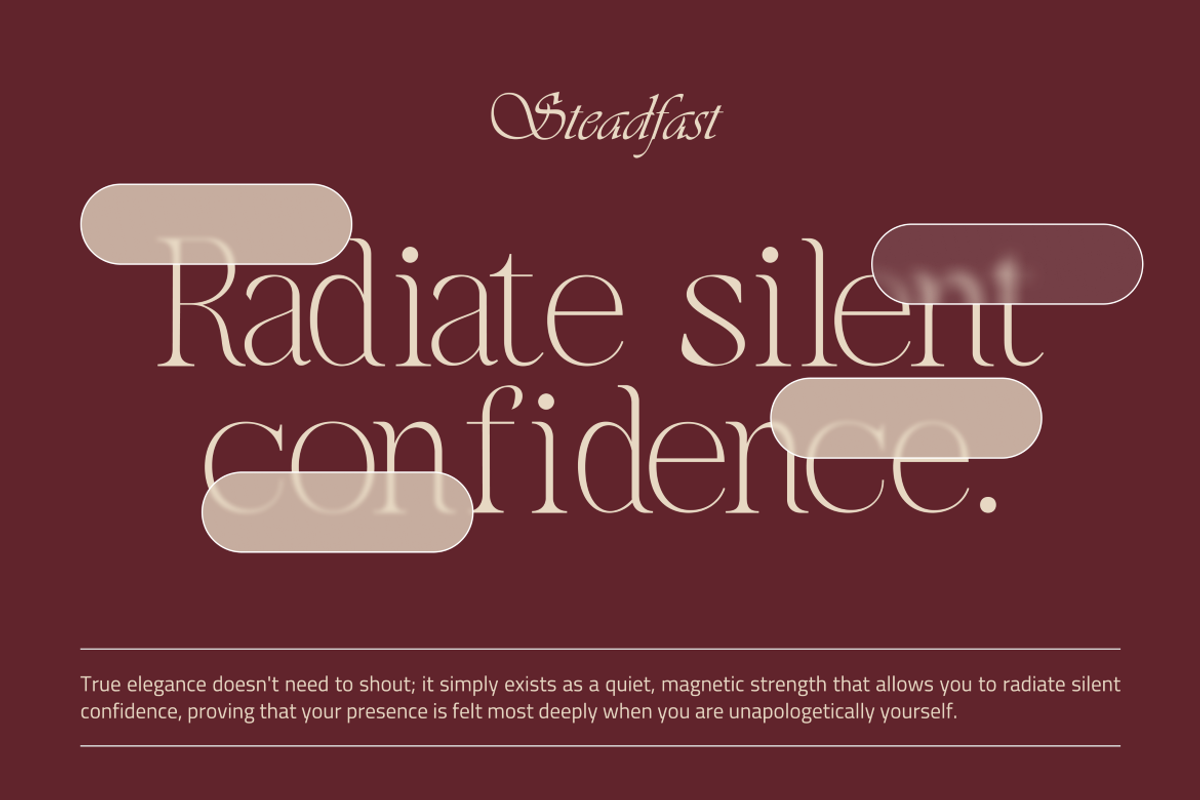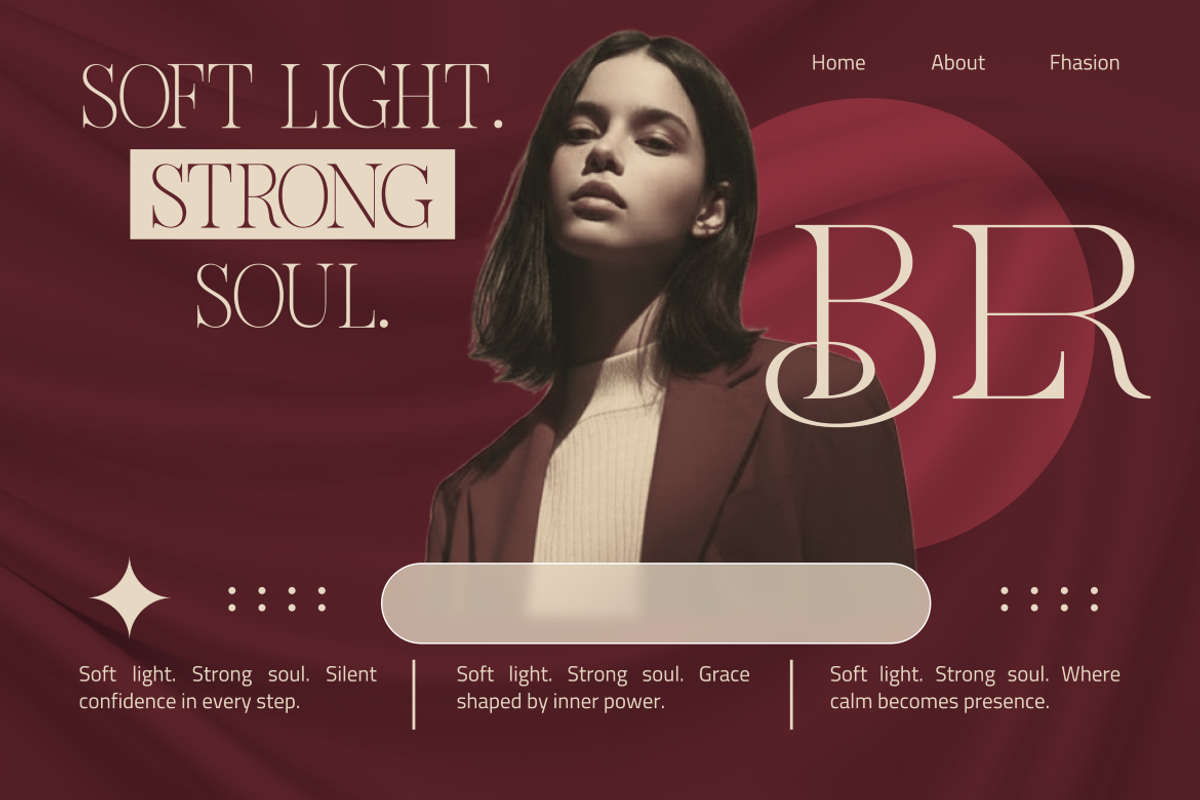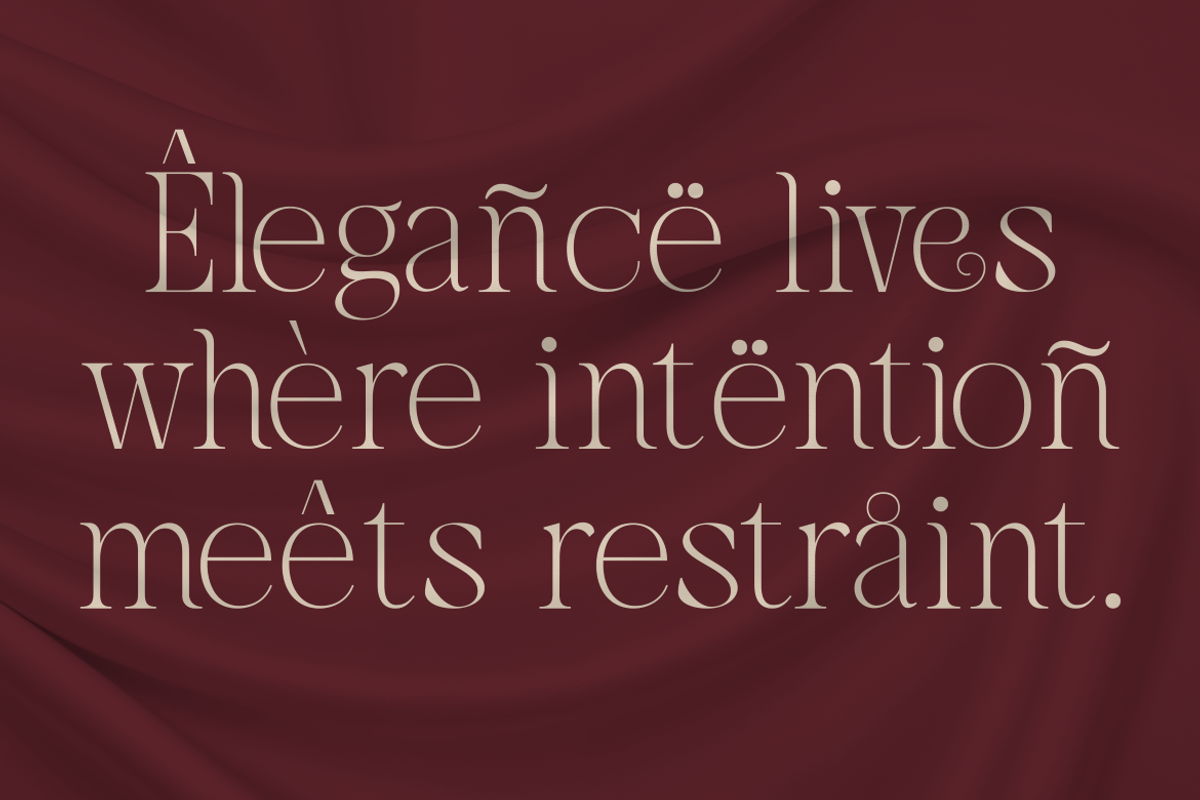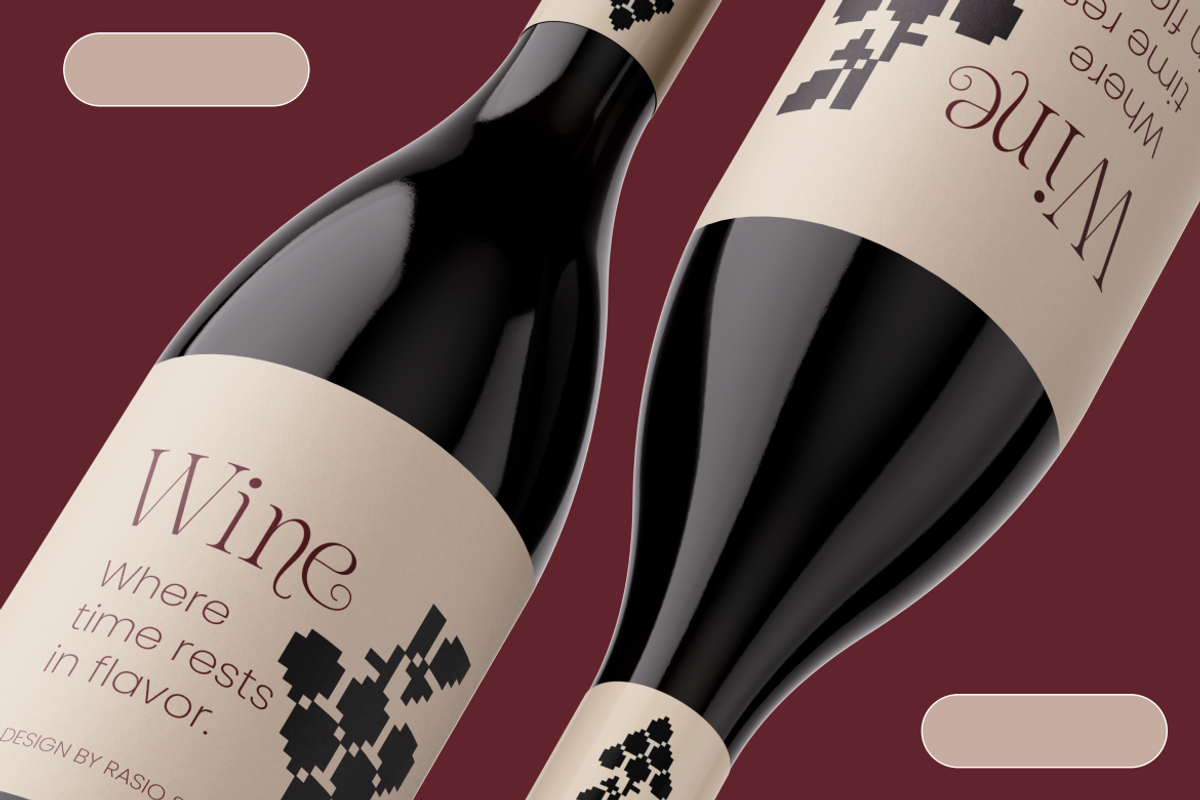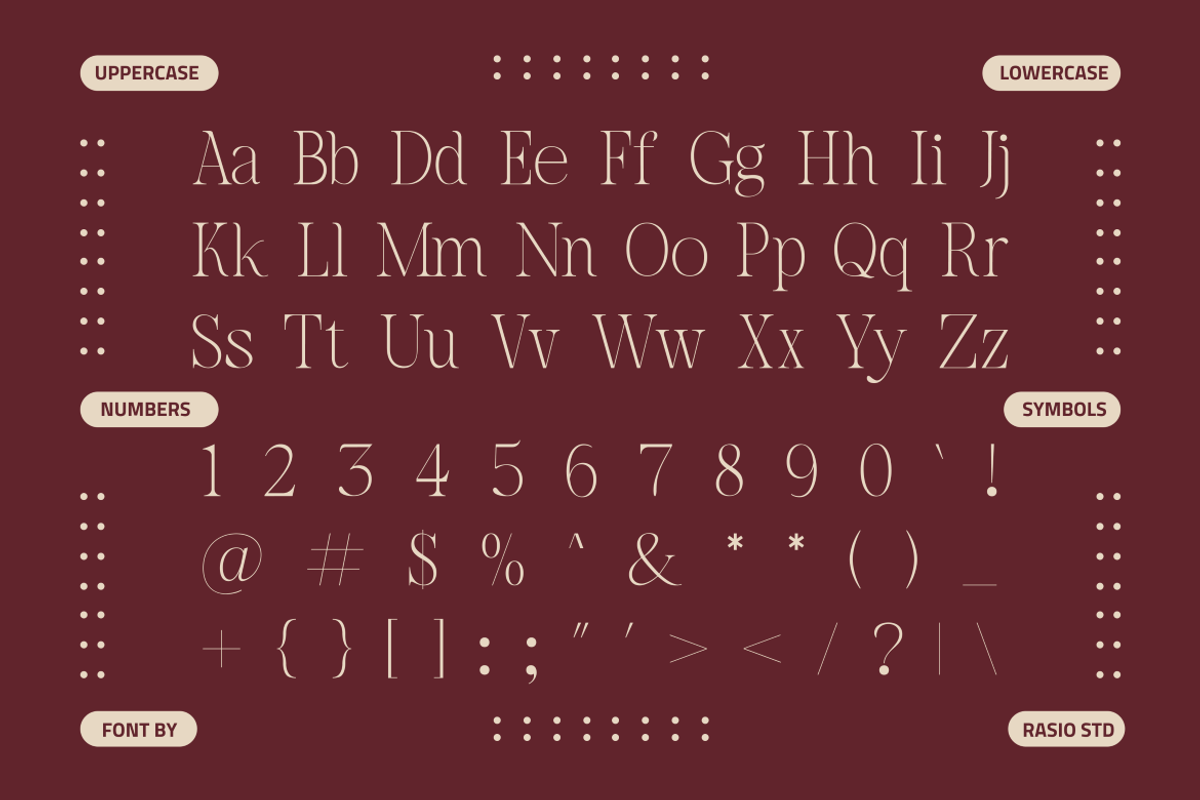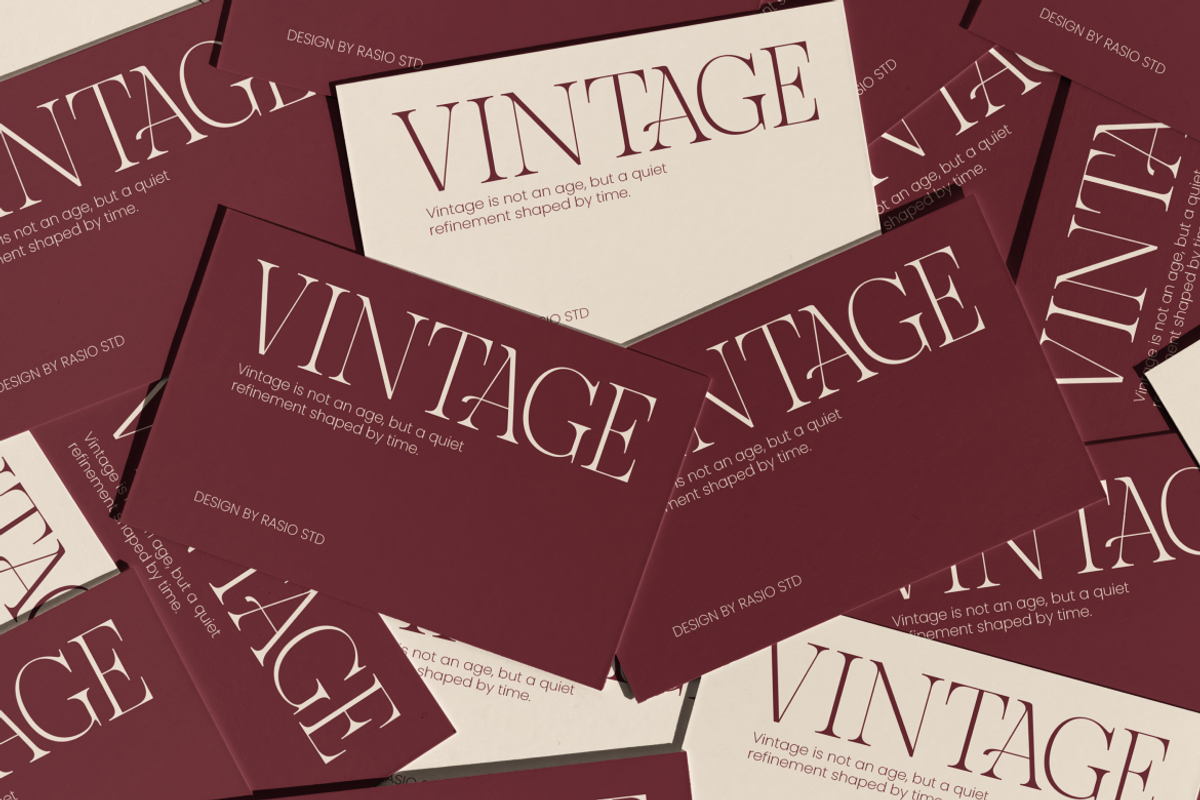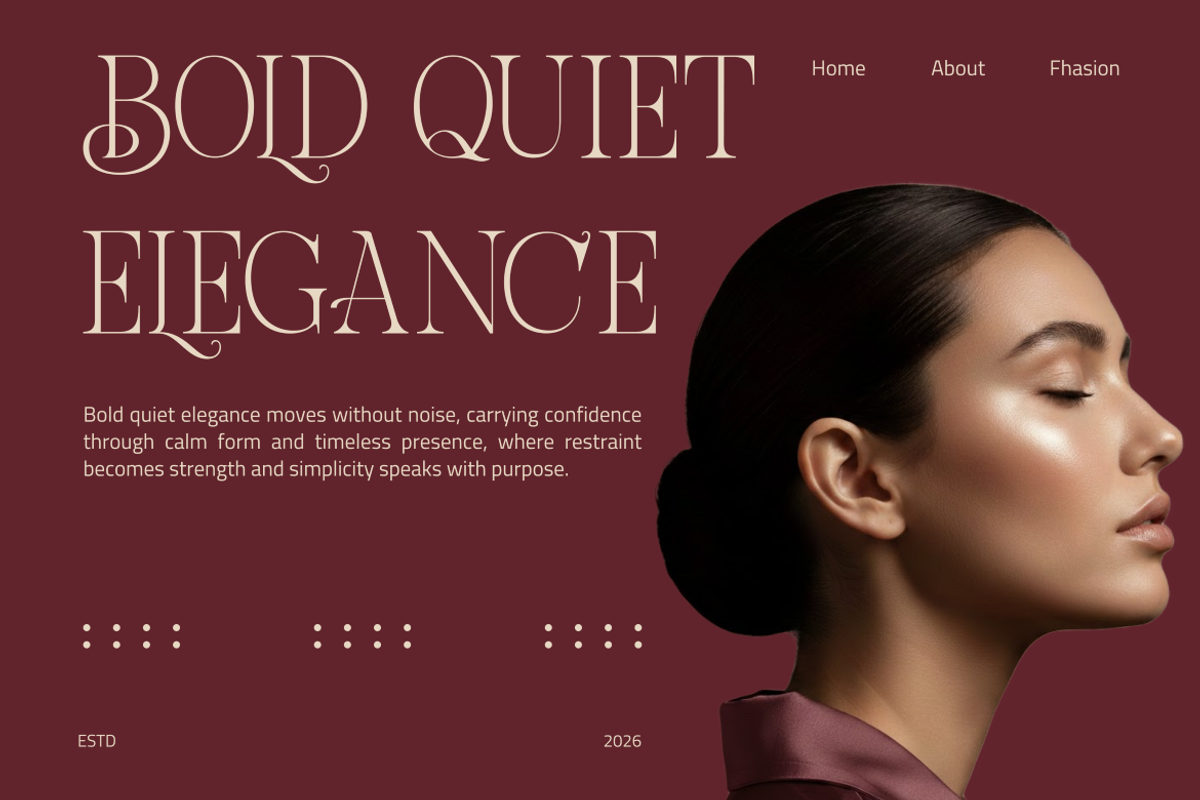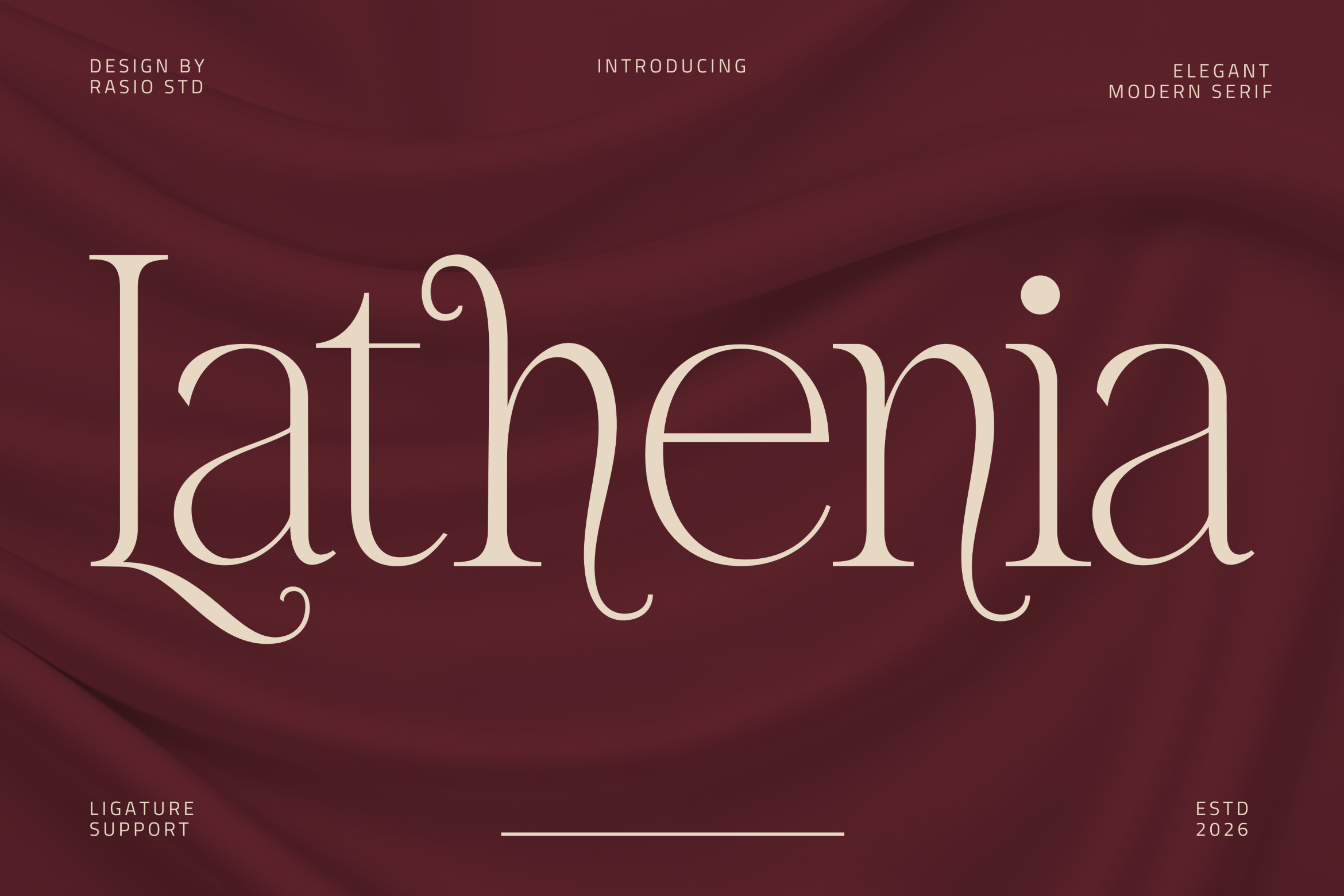
Lathenia Elegant Modern Serif Font
Lathenia is an elegant modern serif typeface designed to bring sophistication and refined beauty to contemporary typography. With graceful curves, balanced proportions, and stylish ligatures, this typeface creates a luxurious and timeless visual presence. The letterforms combine classic serif elegance with modern minimal refinement, making Lathenia ideal for premium branding and editorial design.
Lathenia is designed for projects that demand elegance and visual sophistication. Its modern serif structure and ligature details make it ideal for branding, editorial layouts, luxury packaging, fashion labels, and premium marketing materials. The typeface works beautifully for headlines, logos, and refined typography compositions where style and clarity are equally important.
- Elegant modern serif structure with refined proportions
- High-contrast strokes that create a sophisticated visual rhythm
- Graceful curves and subtle tapered terminals for a luxurious feel
- Distinctive ligatures that add expressive typographic character
- Balanced spacing that keeps headlines stylish yet highly readable
- Brand identity and logo design for luxury, fashion, and beauty brands
- Editorial magazines, book covers, and sophisticated headline layouts
- High-end product packaging and premium label design
- Wedding invitations, boutique branding, and elegant stationery
- Social media graphics and marketing materials with refined typography